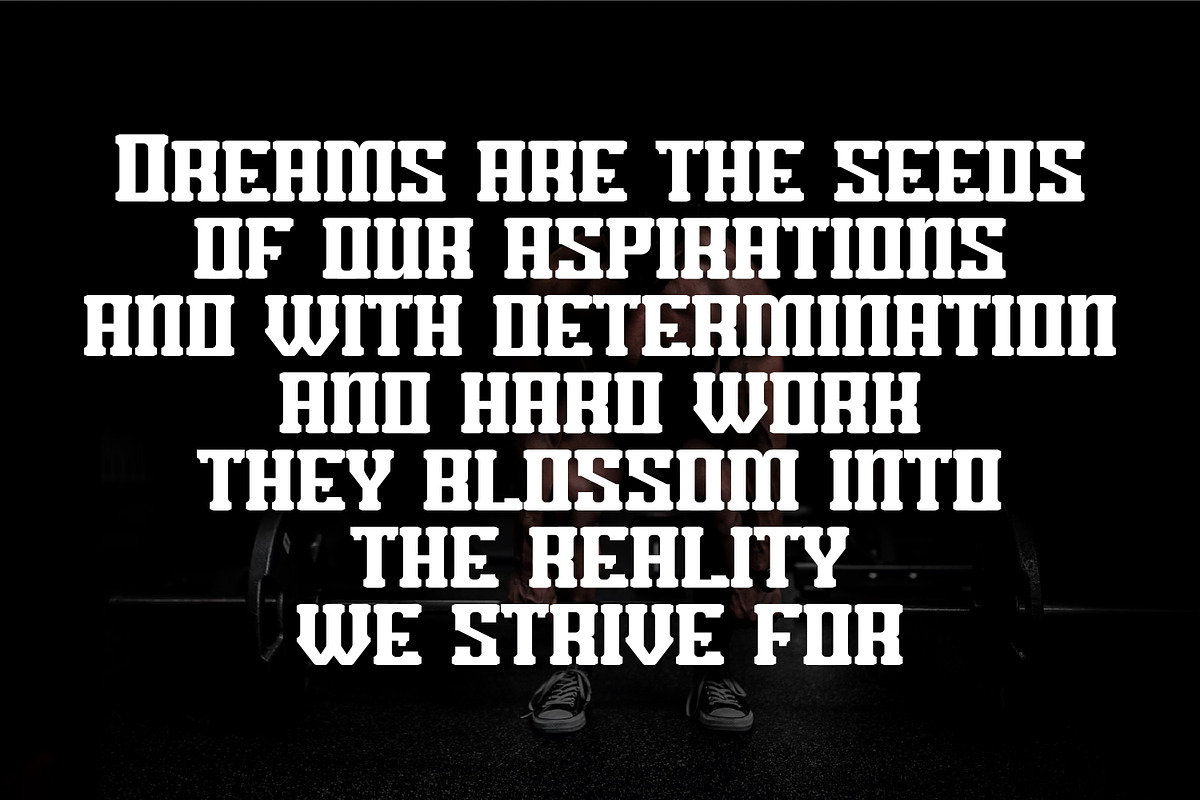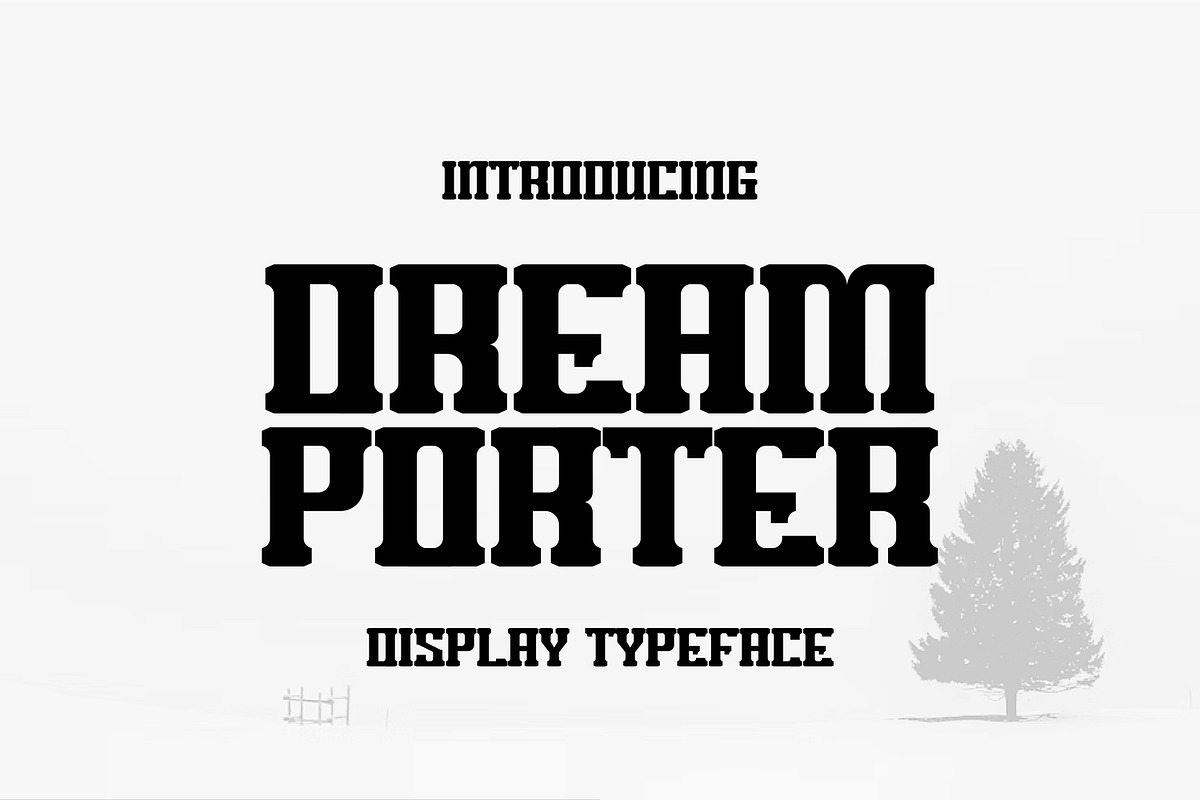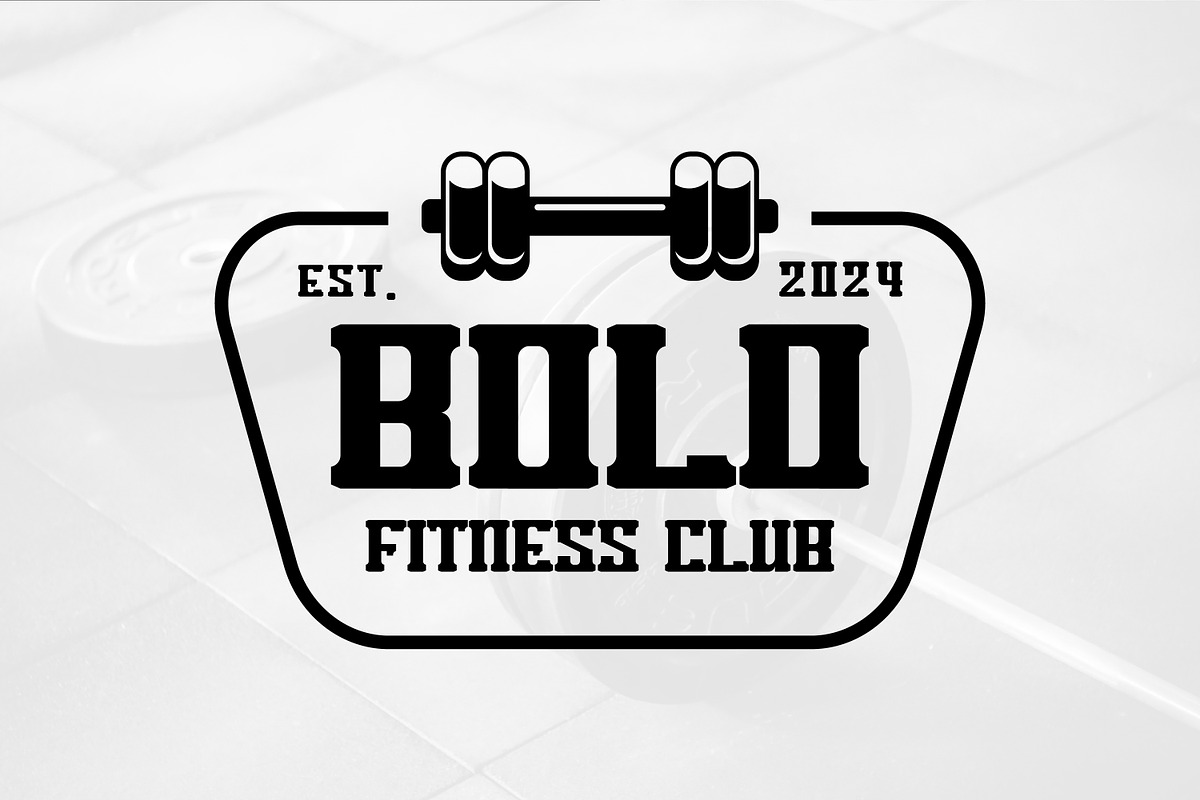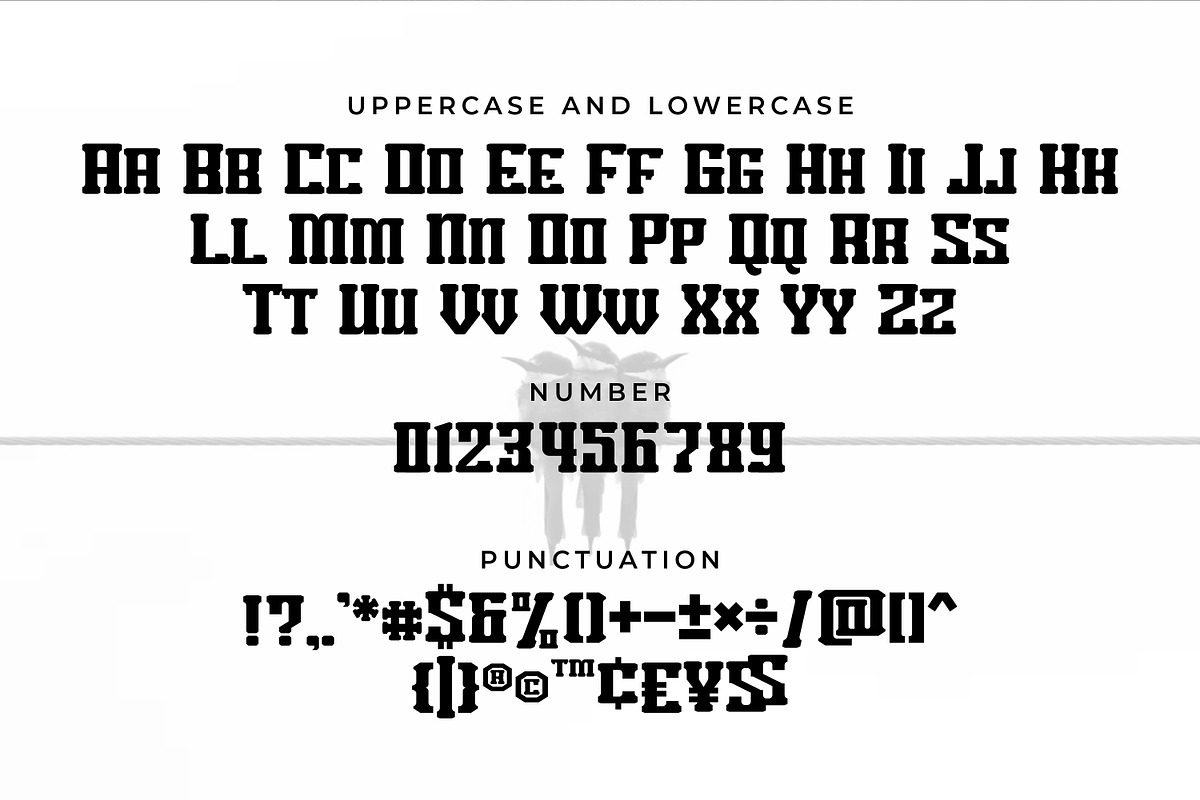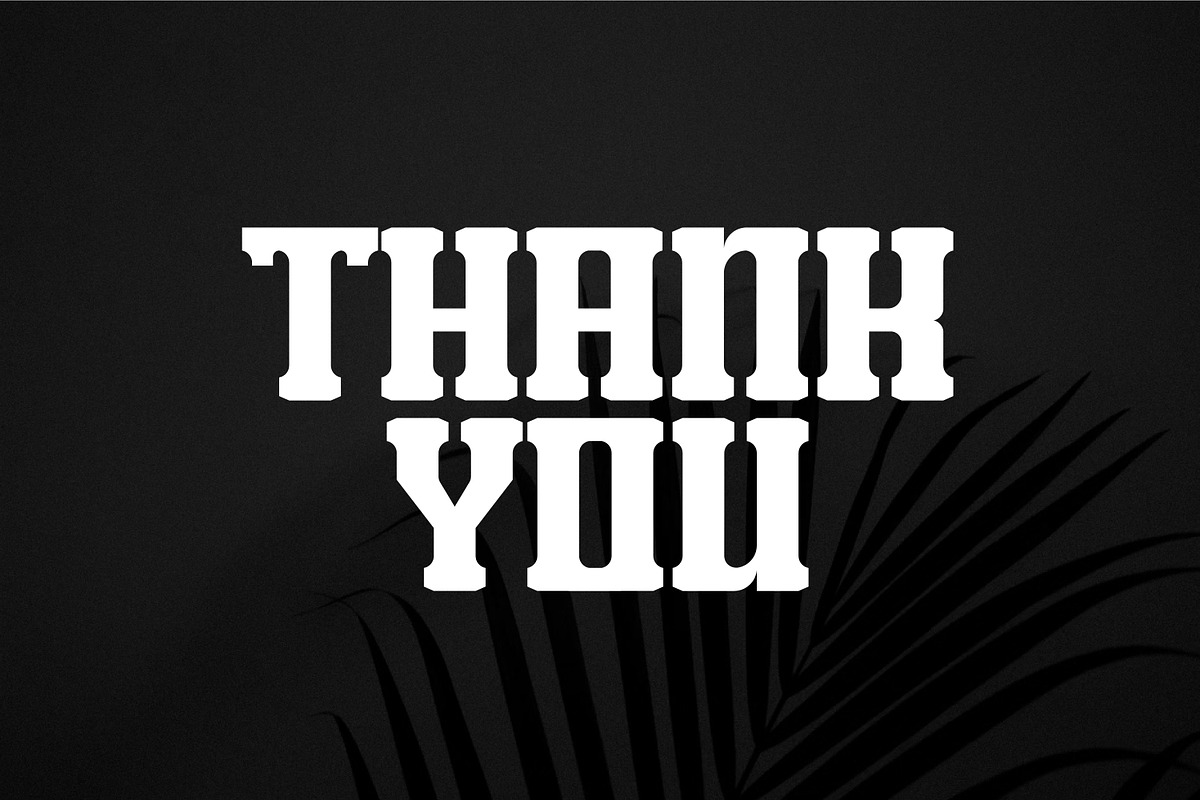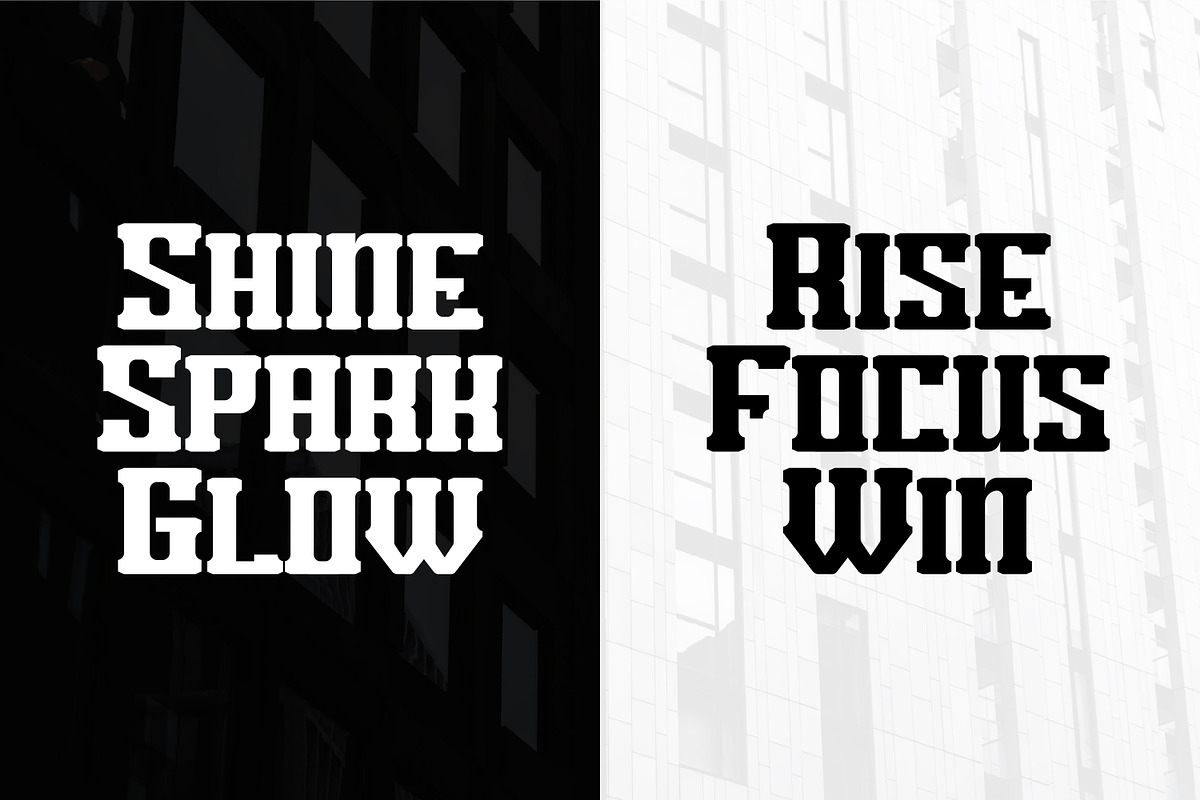
Dream Porter Bold Display
Introducing Dream Porter The bold display font that commands attention and delivers impact with every word. Designed to make your messages stand out, Dream Porter’s thick, confident strokes bring a sense of strength and clarity to any project. Whether it’s for branding, headlines, posters, or packaging, this font packs a punch, ensuring your designs leave a lasting impression.
Elevate your designs with Dream Porter—where boldness meets brilliance!